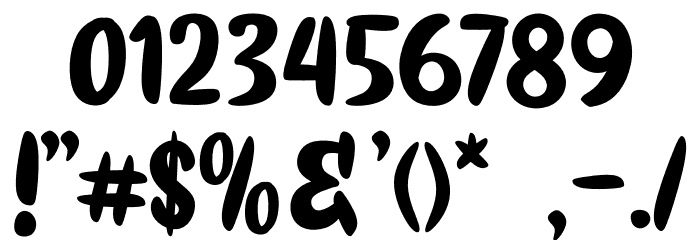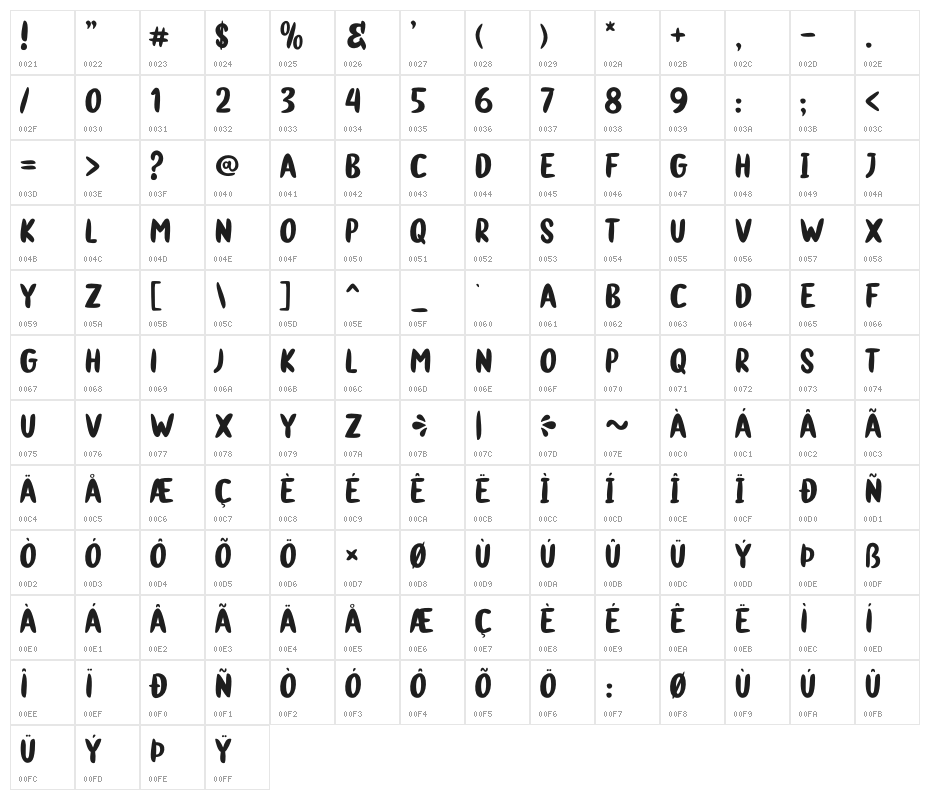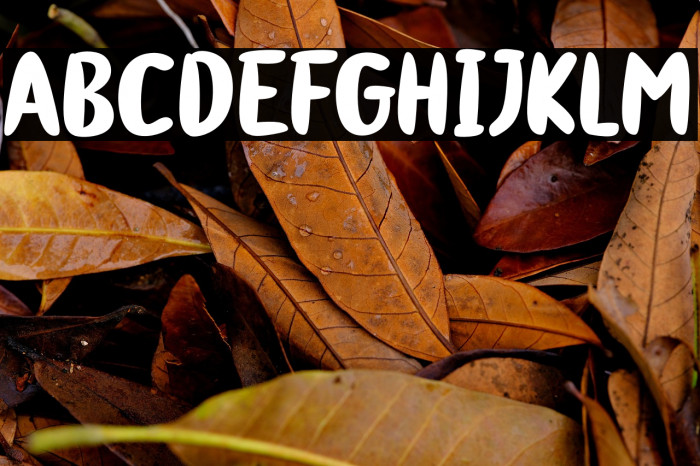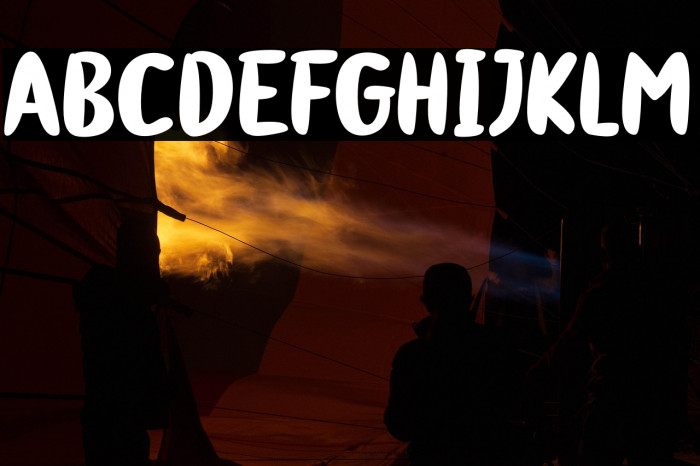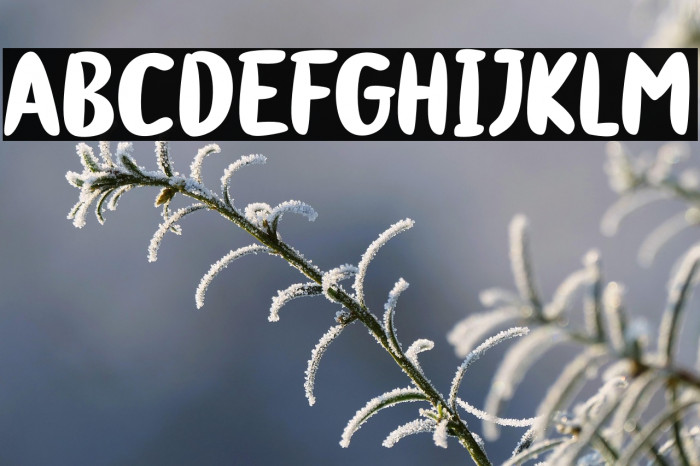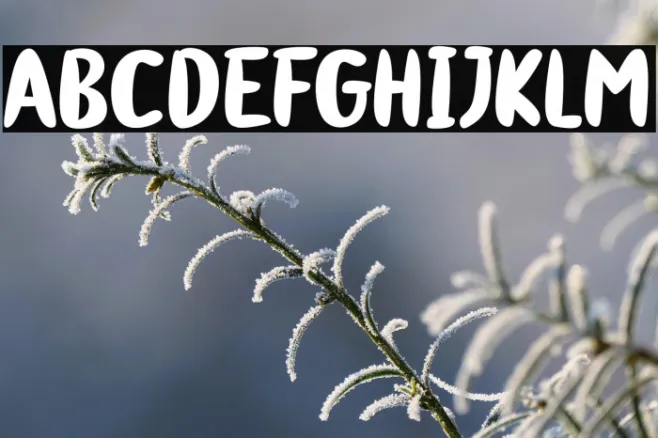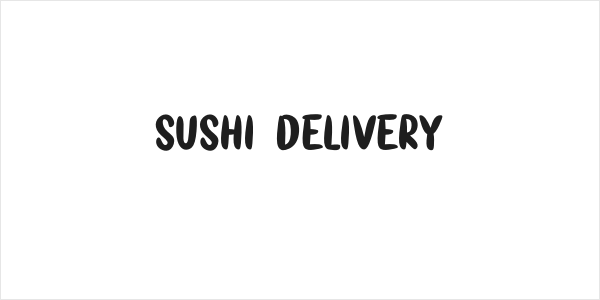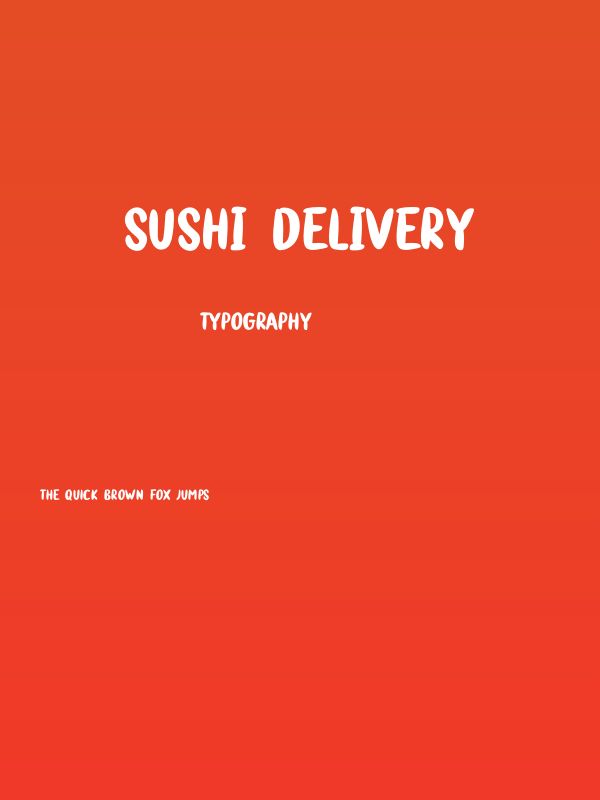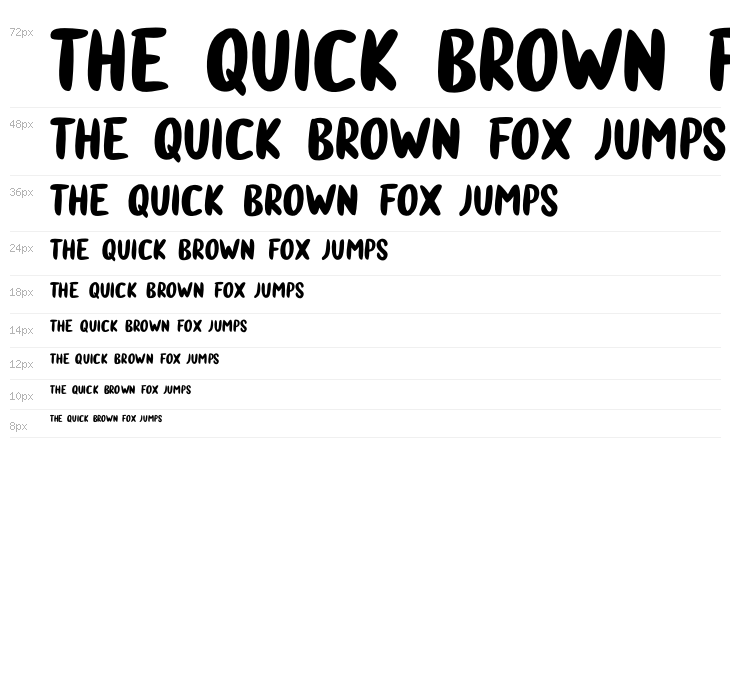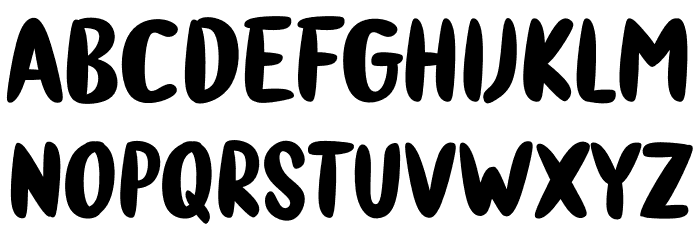
Sushi Delivery Font
Sushi Delivery Description
This font features a bold and playful style, characterized by its rounded and thick strokes. The letters have a hand-drawn appearance, giving them a casual and friendly vibe. The uppercase and lowercase letters maintain a consistent weight, contributing to a cohesive look. The numerals are equally bold, ensuring readability and uniformity across different uses. Special characters are designed with the same playful touch, making them suitable for creative and informal contexts. The overall design is approachable and lively, perfect for projects that aim to convey a sense of fun and energy.
| Proposed Projects | Ideal for children's books, playful branding, casual invitations, and creative posters. |